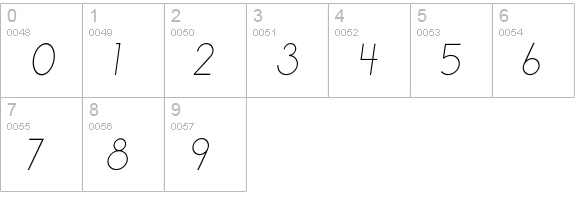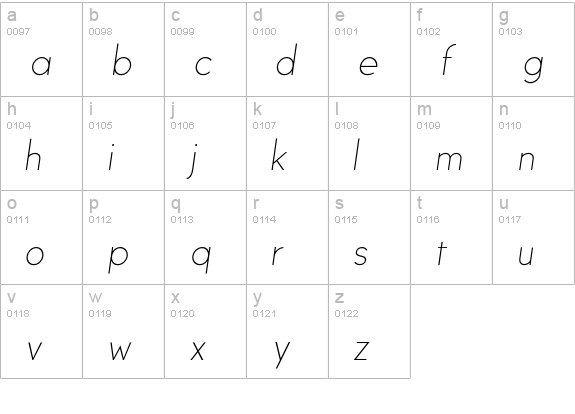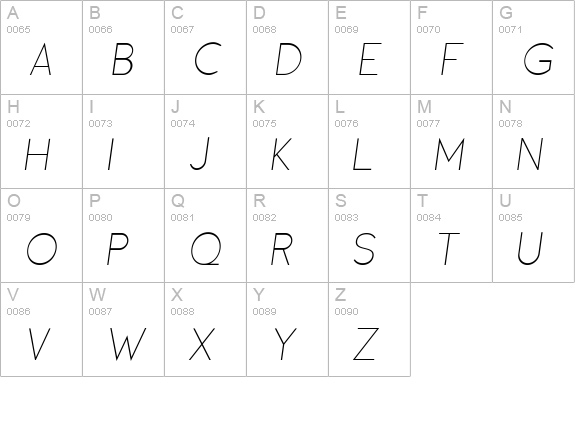
Satellite Oblique Font Details
Satellite Oblique is a distinctive, italic variant in the Satellite typeface family \xE2\x80\x94 well suited to design and typography projects.
Satellite Oblique font is a modern and stylish typeface that effortlessly blends sophistication with a touch of playfulness. Its unique slanted design adds a dynamic flair to any project, making it perfect for eye-catching headlines, logos, and branding materials. The sleek lines and sharp angles of Satellite Oblique exude a sense of contemporary elegance, while its clean and legible characters ensure readability across various design applications. What's even better is that Satellite Oblique font is available for free download at FontsMarket.com. So, whether you're a designer looking to elevate your creative projects or an individual searching for a fresh font for personal use, Satellite Oblique offers the perfect solution with its versatility and modern appeal. Download this striking typeface today and add a touch of sophistication to your designs with ease.